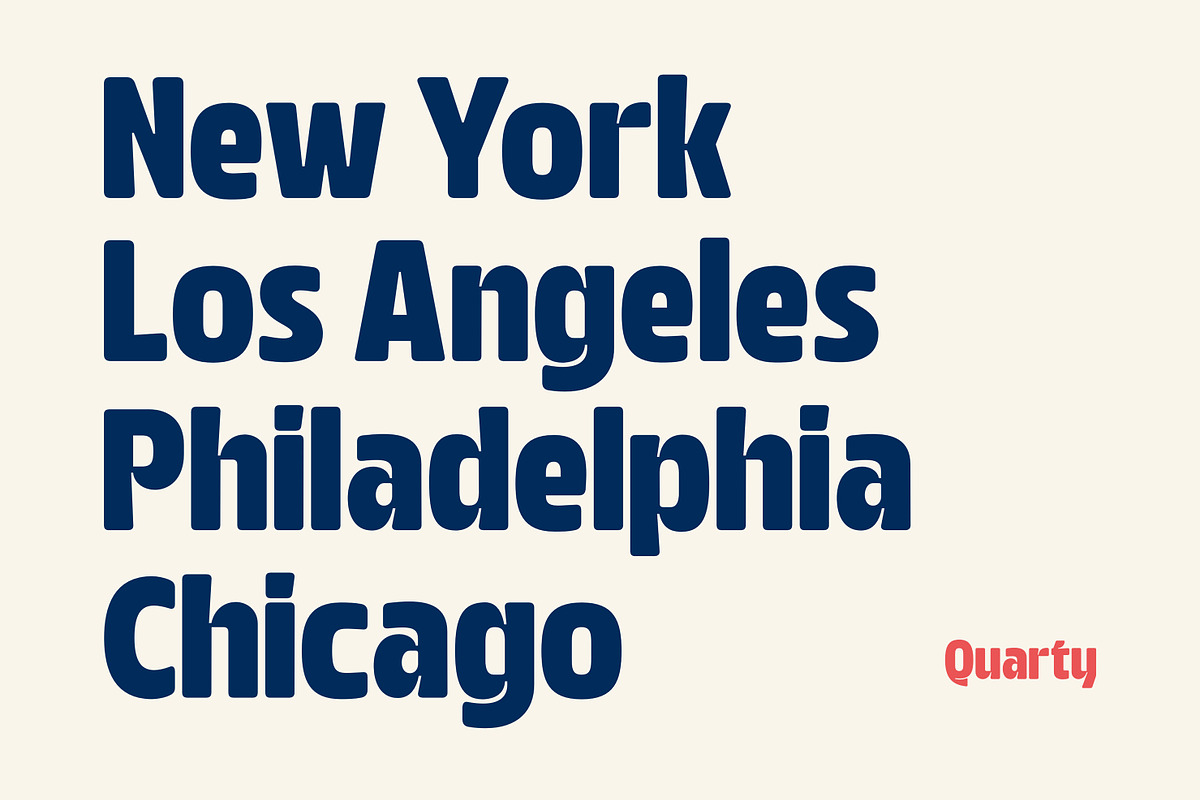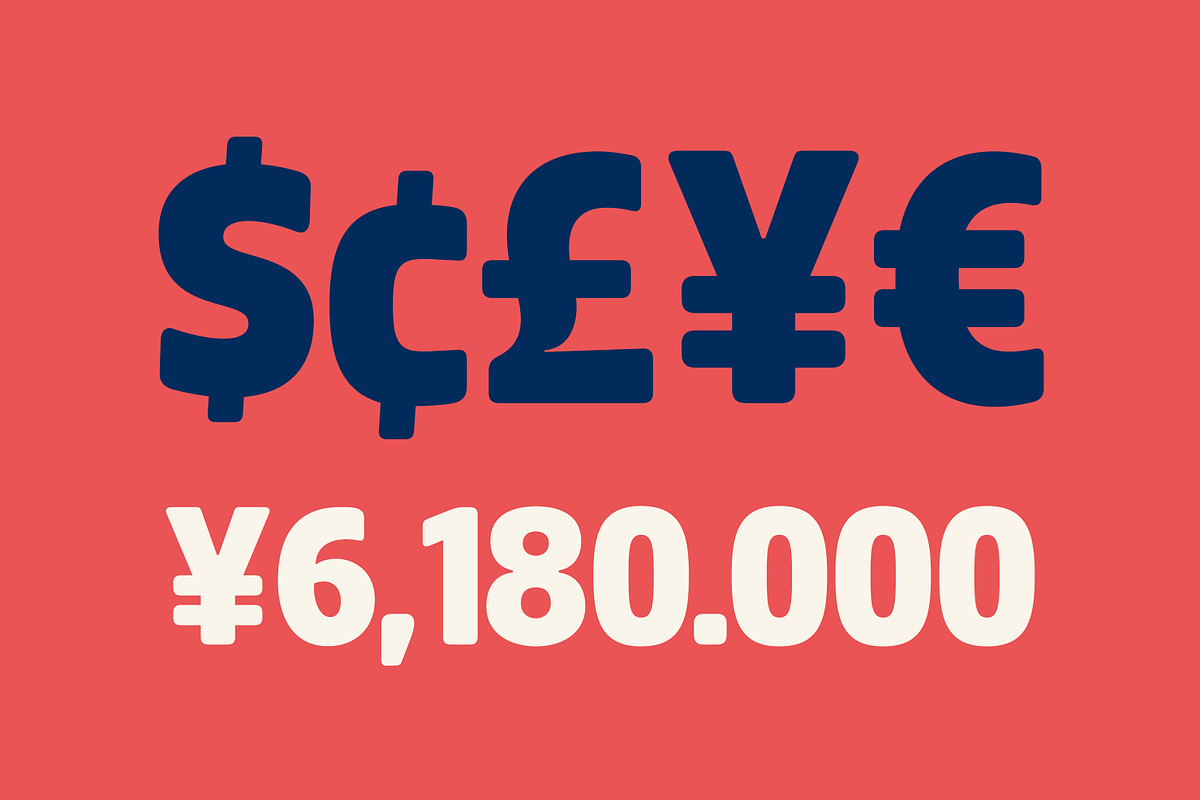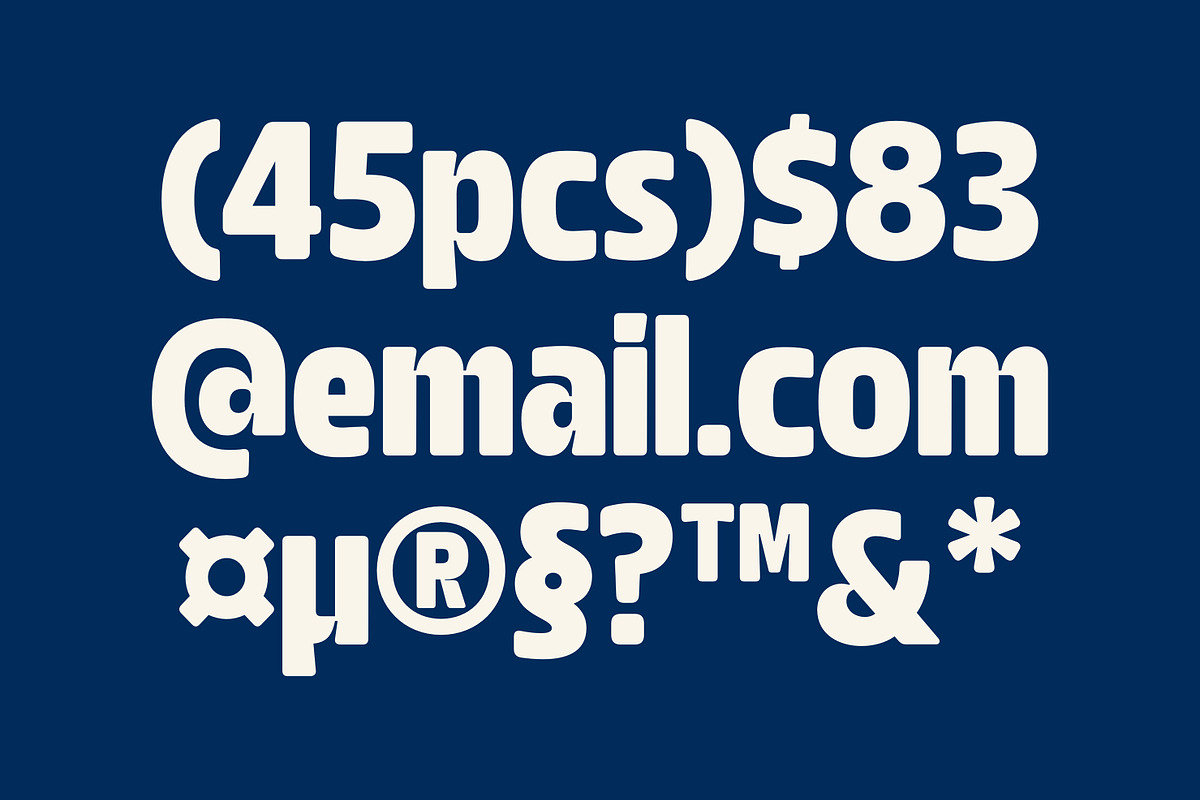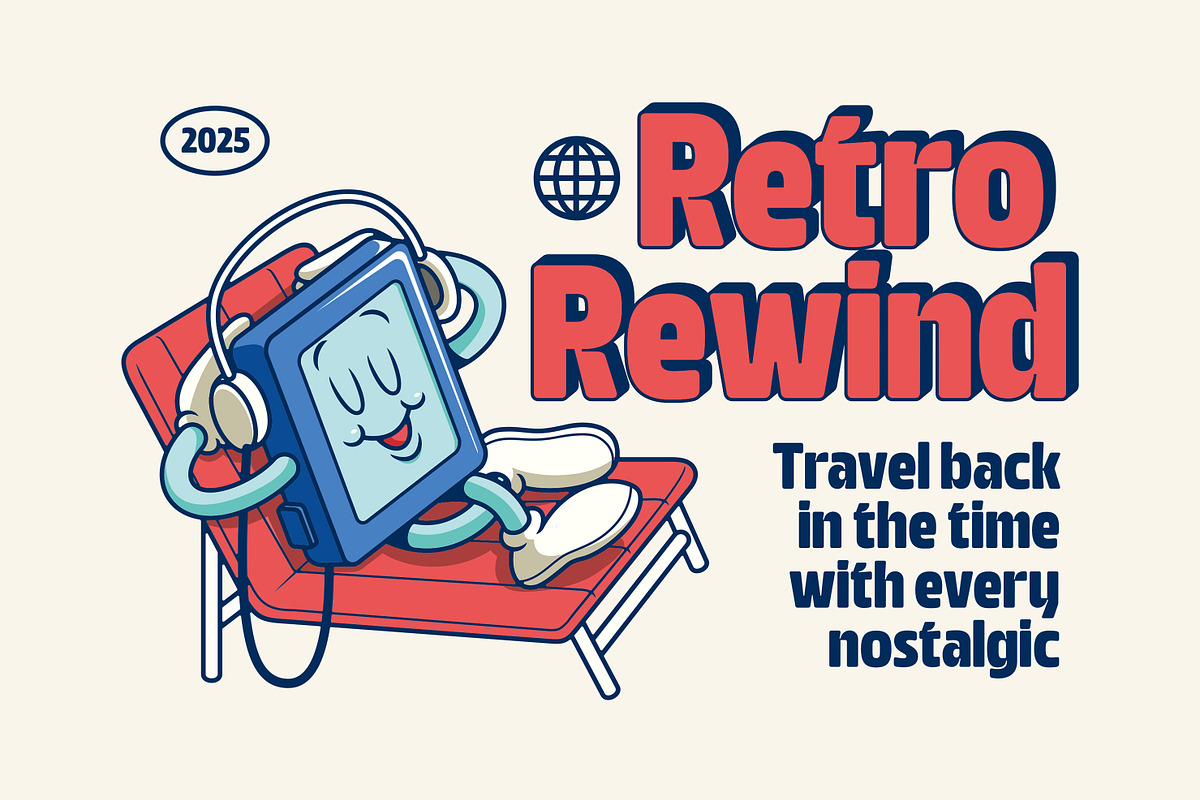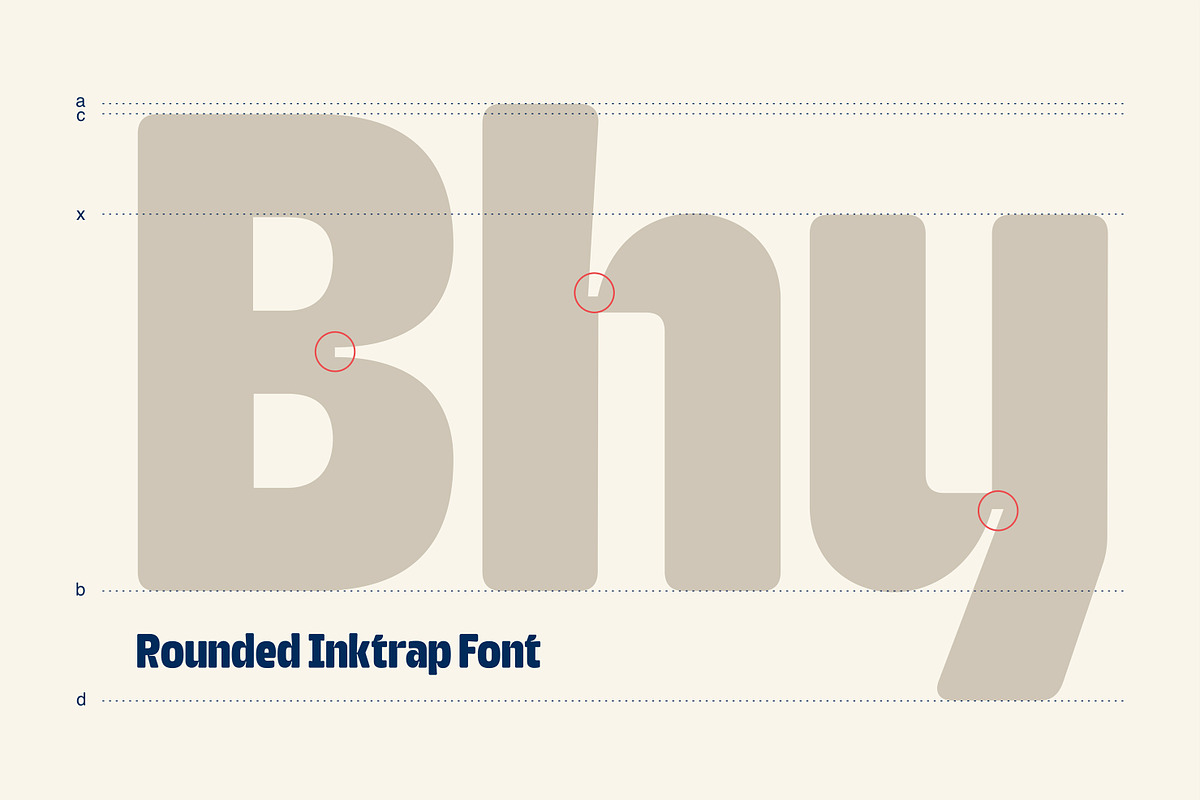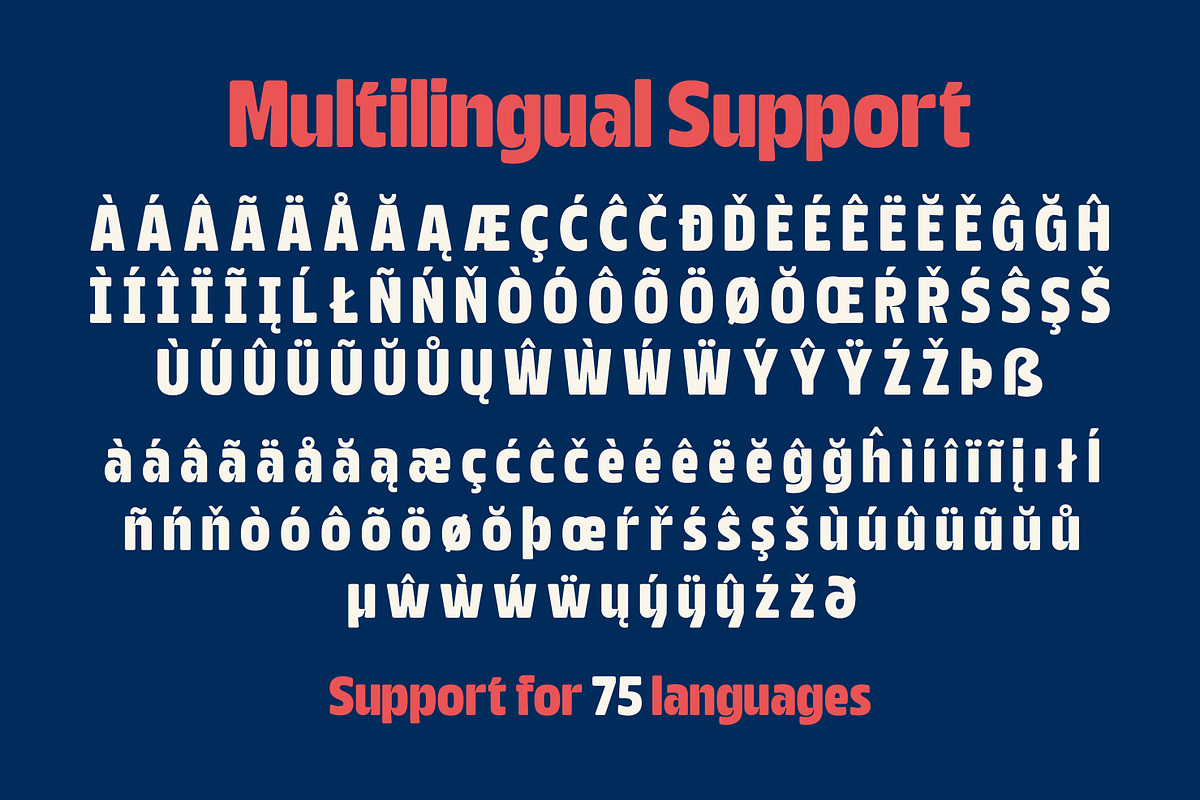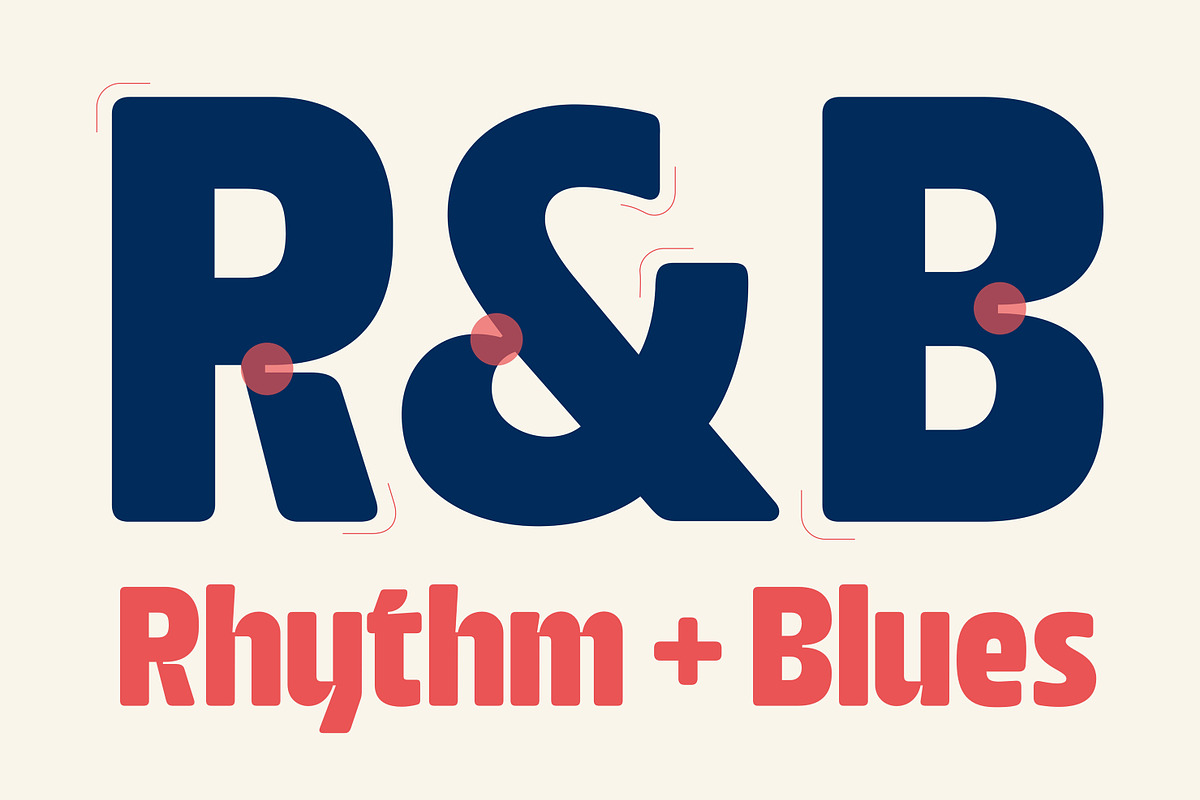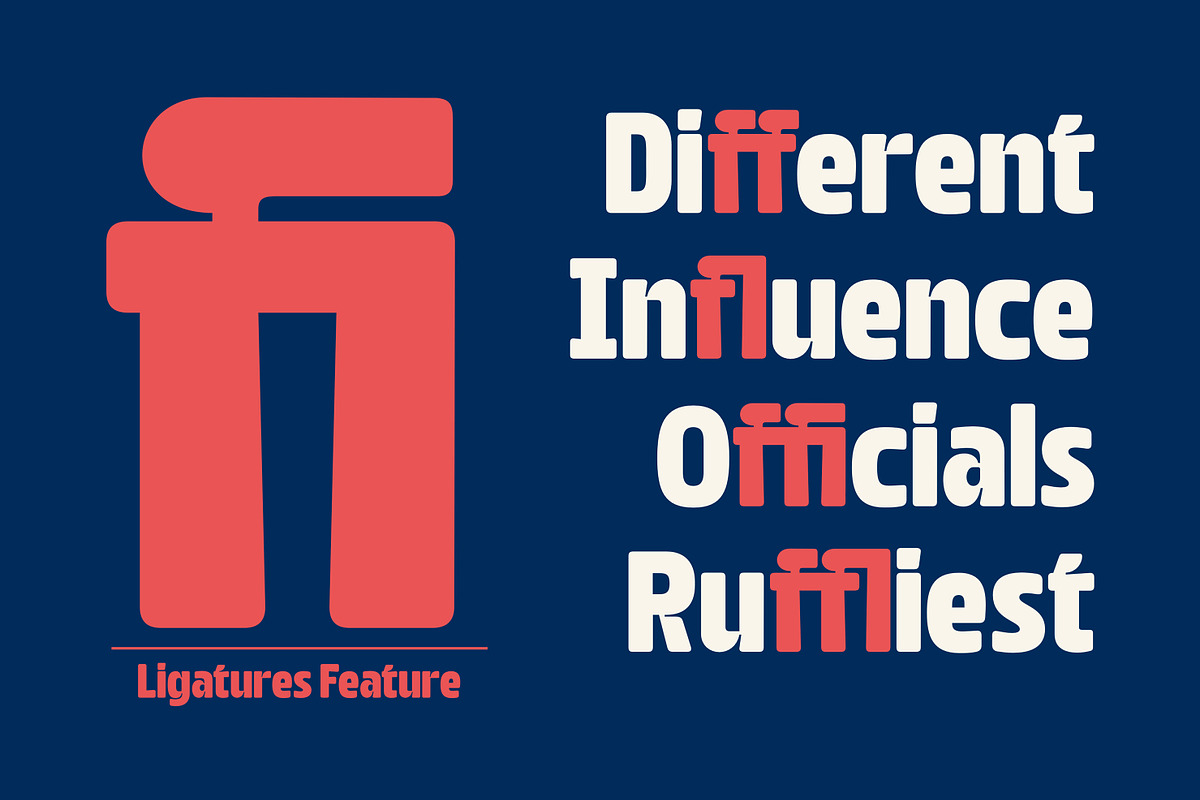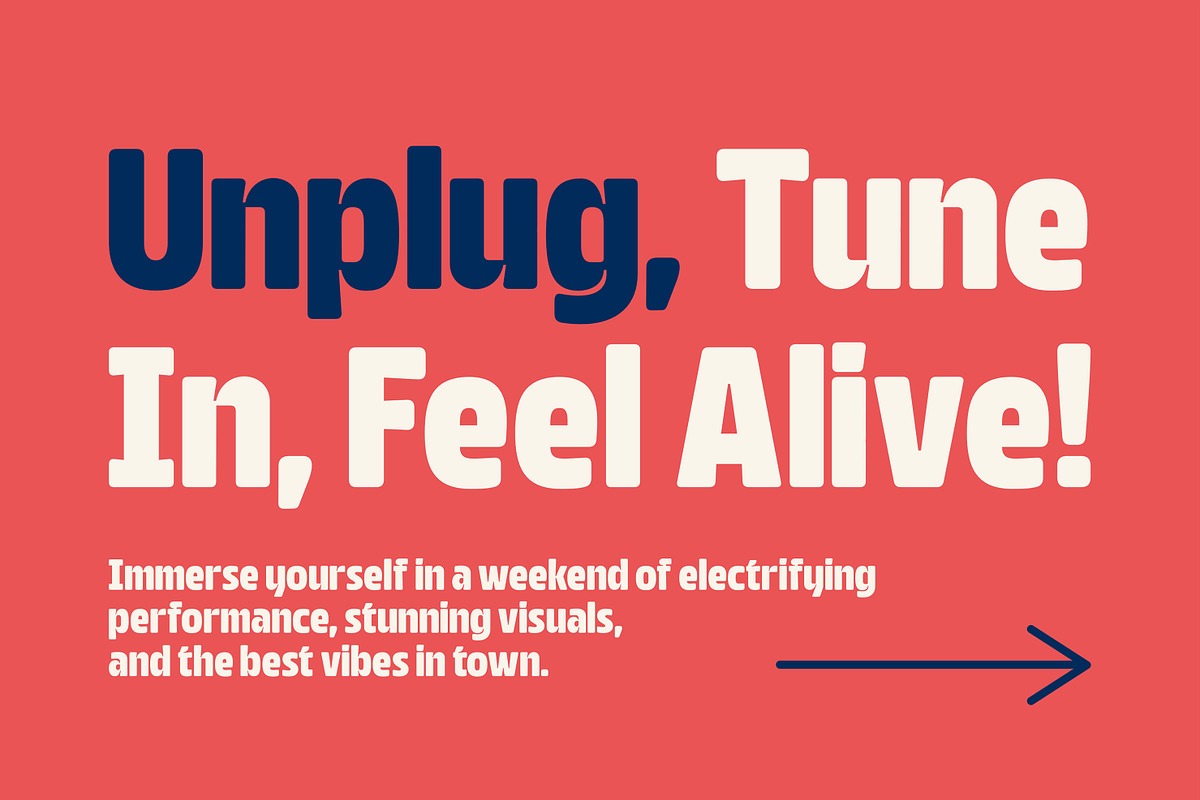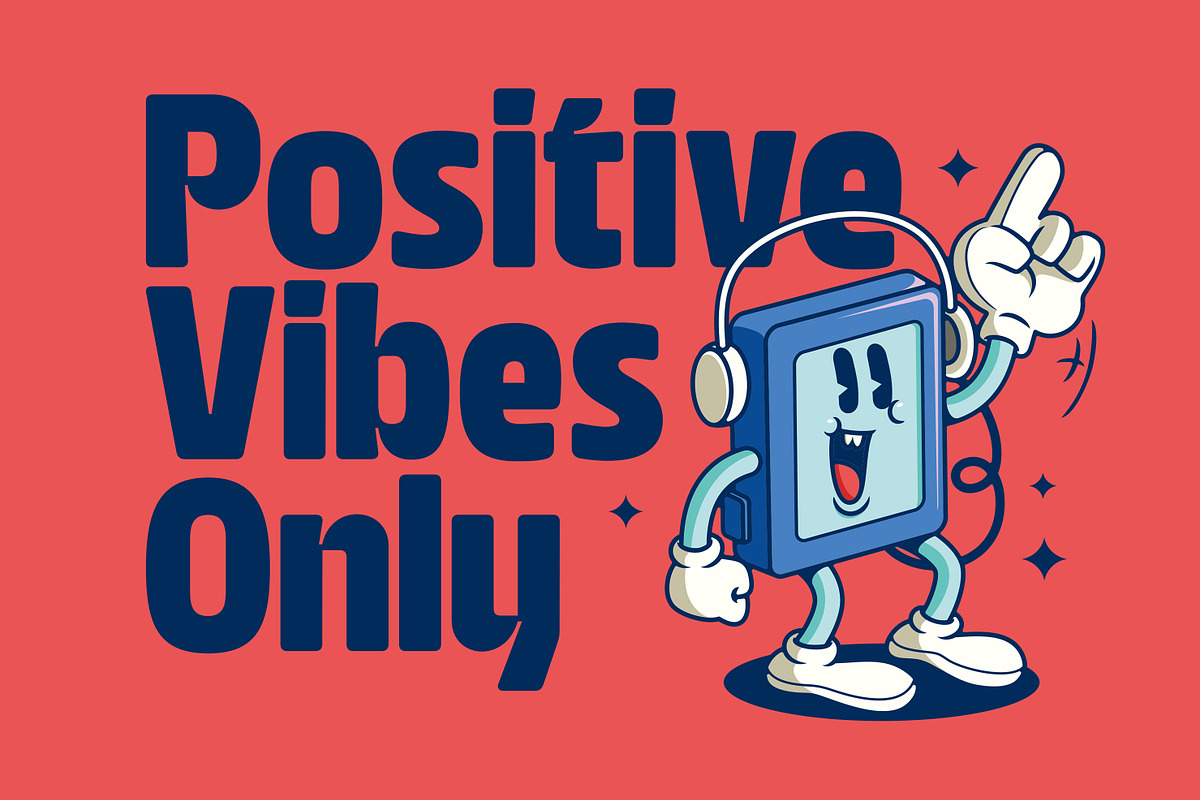
Quarty - Rounded Inktrap Font
Quarty is a rounded inktrap font that blends classic retro vibes with a soft, modern touch. Featuring smooth curves and subtle inktraps, this typeface brings a distinctive personality while maintaining excellent readability.
Perfect for a wide range of design needs—whether it’s branding, vintage posters, logos, packaging, or editorial layouts—Quarty adds a nostalgic flair without losing its contemporary edge.
With its unique forms and a vibe that channels the spirit of the ‘70s to early ‘90s, Quarty is your go-to font for projects that call for retro charm and creative character.
This font is perfect for creating nostalgic designs, such as retro/groovy posters, advertisements, and packaging. It's also great for creating unique and eye-catching titles and headings.
Choose Quarty for a retro-style font that adds nostalgia and personality to your designs.